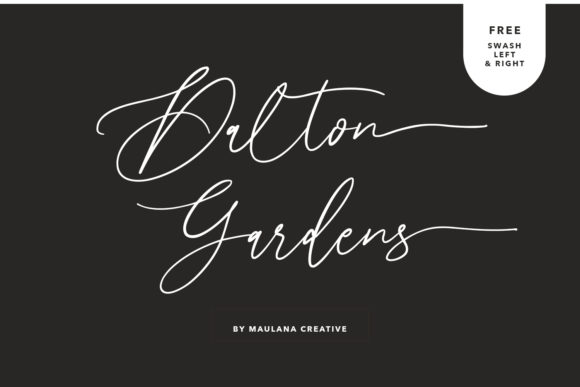
Dalton Gardens Font: Elevate Your Design with Elegance and Sophistication
When it comes to creating visually stunning designs, typography plays a crucial role. A well-chosen font can elevate your project from ordinary to extraordinary. If you’re looking for a font that embodies elegance, sophistication, and versatility, look no further than Dalton Gardens Font. In this article, we’ll explore the world of Dalton Gardens Font, its features, and how it can simplify your design process.
What is Dalton Gardens Font?
Dalton Gardens Font is a truly outstanding handwritten font that simplifies elegance into one remarkable typeface. It maintains its classy calligraphic influences while feeling contemporary and fresh. This unique blend of traditional and modern elements makes it an excellent choice for a wide range of design projects.
Key Features of Dalton Gardens Font
- Elegant and Sophisticated: Dalton Gardens Font boasts a refined and luxurious feel, perfect for high-end designs, letterheads, and titles.
- Contemporary and Fresh: Despite its classic influences, this font feels modern and fresh, making it suitable for a variety of creative projects.
- Versatile: Dalton Gardens Font can be used for a range of applications, from stationery and titles to branding and advertising.
- Handwritten: This font’s handwritten nature adds a personal touch to your designs, making them more approachable and engaging.
Design Applications for Dalton Gardens Font
Dalton Gardens Font’s versatility makes it an excellent choice for various design projects. Here are some ideas to get you started:
- Letterheads and Stationery: Add a touch of elegance to your business correspondence with Dalton Gardens Font.
- Titles and Headings: Use this font to create stunning titles and headings for your blog posts, articles, or website.
- Branding and Advertising: Dalton Gardens Font is perfect for creating sophisticated brand identities, logos, and ad campaigns.
- Wedding and Event Design: This font’s romantic and elegant feel makes it ideal for wedding invitations, event branding, and more.
Tips for Using Dalton Gardens Font
To get the most out of Dalton Gardens Font, follow these tips:
- Pair it with a sans-serif font: Combine Dalton Gardens Font with a clean sans-serif font for a beautiful contrast.
- Experiment with colors: Try pairing this font with different colors to create unique and eye-catching designs.
- Use it for headlines and titles: Dalton Gardens Font shines when used for headlines and titles, so use it to make a statement.
Benefits of Using Dalton Gardens Font
By choosing Dalton Gardens Font for your design projects, you’ll enjoy several benefits:
- Time-saving: With Dalton Gardens Font, you can create stunning designs quickly and efficiently.
- Professional-looking results: This font’s elegant and sophisticated feel ensures your designs look professional and polished.
- Flexibility: Dalton Gardens Font’s versatility allows you to use it for a wide range of design projects.
Dalton Gardens Font is a truly exceptional handwritten font that simplifies elegance into one remarkable typeface. Its classy calligraphic influences, contemporary feel, and versatility make it an excellent choice for various design projects. Whether you’re looking to create stunning letterheads, titles, or stationery, Dalton Gardens Font is sure to elevate your designs to the next level.